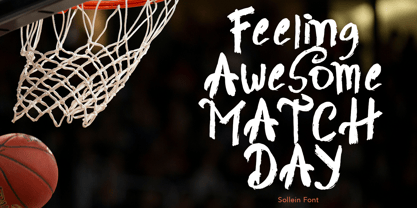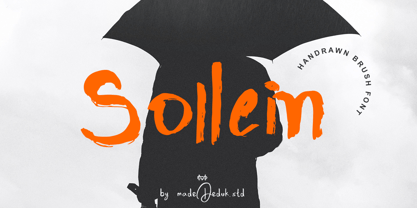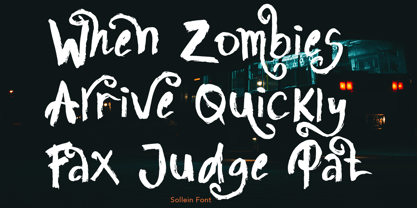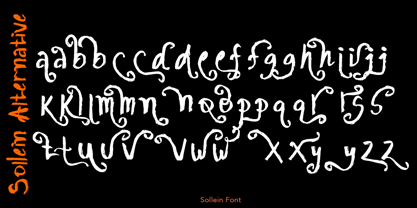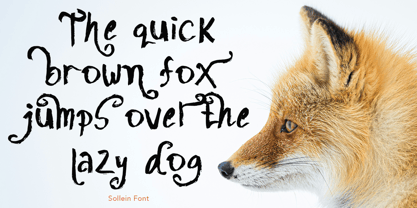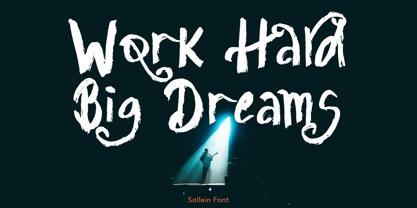
Sollein
by madeDeduk
The Sollein Font Family was designed by madededuk and published by madeDeduk. Sollein contains 1 styles.
Really excited to introduce Sollein is a realistic brush font! Come with much alternative and this font perfect for poster design, book covers, merchandise, fashion, newsletters, branding, advertising, magazines, greeting cards, album covers, quote and more.
Designers: madededuk
Publisher: madeDeduk
Foundry: madeDeduk
Design Owner: madeDeduk